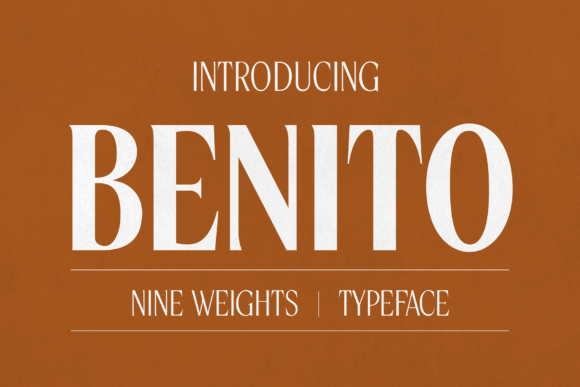
The Elegance of Benito Font: A Designer’s Best Friend
I still remember the time I was working on a high-end branding project for a luxury fashion client. I had spent hours perfecting the logo design, but something was off. The font I had chosen just didn’t feel sophisticated enough for the brand. I scoured the internet for the perfect font, and then I stumbled upon Benito. It was love at first sight! 💕 The sleek lines, the elegant curves, and the professional look – it was exactly what I needed to elevate my design.
An Honest Review of Benito Font
What I Love About Benito ✨
- ✅ Timeless design that never goes out of style
- ✅ Multilingual support for global accessibility
- ✅ Sleek and professional look perfect for high-end brands
- ✅ Easy to read and understand, even in small sizes
- ⚠️ Some users may find the font too formal for certain projects
The Story Behind Benito Font
Benito font was designed by a team of typographers who wanted to create a font that exudes elegance and sophistication. Inspired by classic serif fonts, they crafted Benito with a modern twist, making it perfect for high-end brands and upscale designs. The font’s name, Benito, is derived from the Italian word for “blessed,” reflecting the font’s timeless and refined qualities.
| Is Benito font suitable for body text? | Yes, Benito is easy to read and understand, making it suitable for body text in both print and digital media. |
| Is Benito font available in multiple languages? | Yes, Benito supports multiple languages, making it a versatile choice for global brands and designs. |